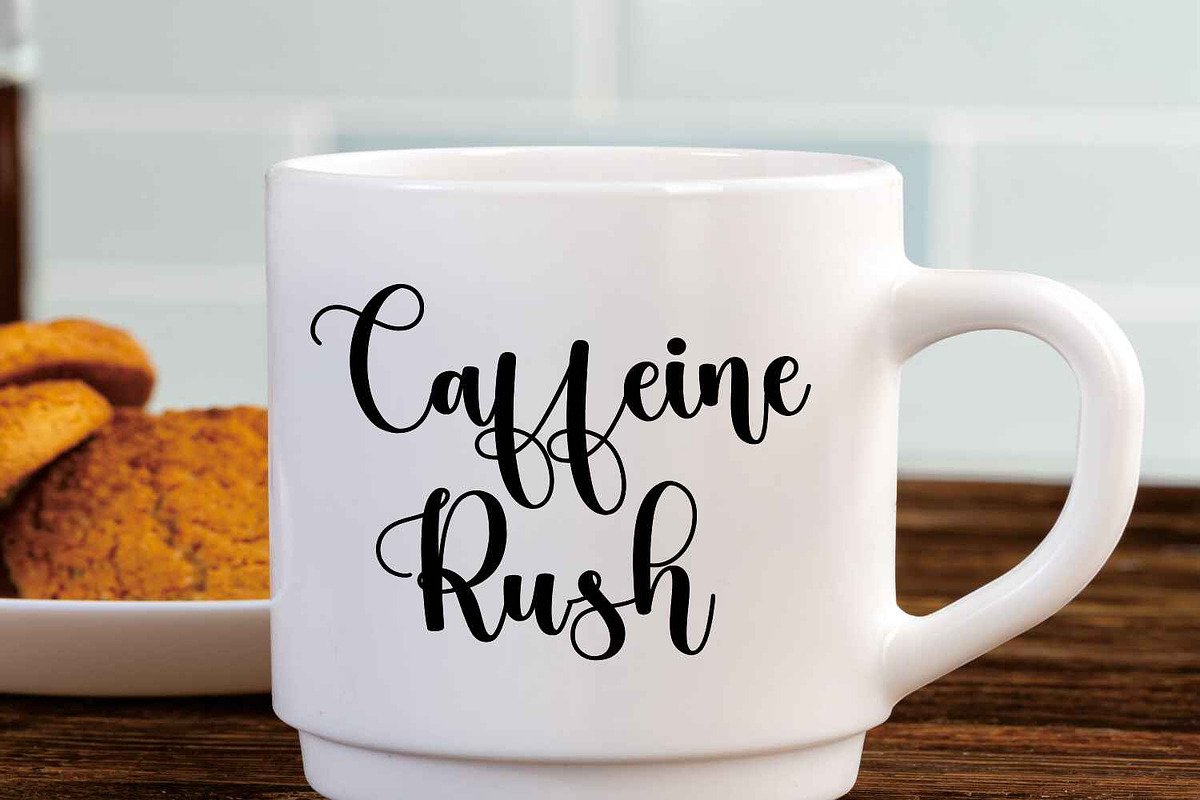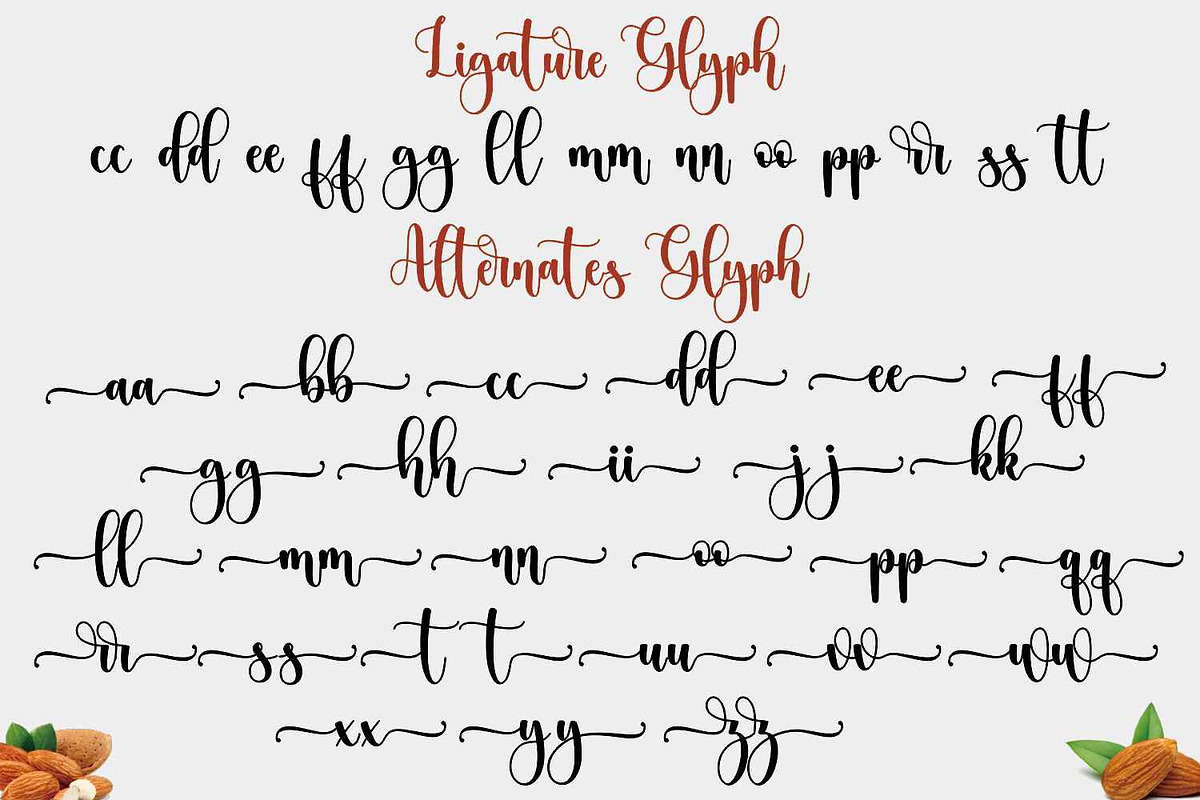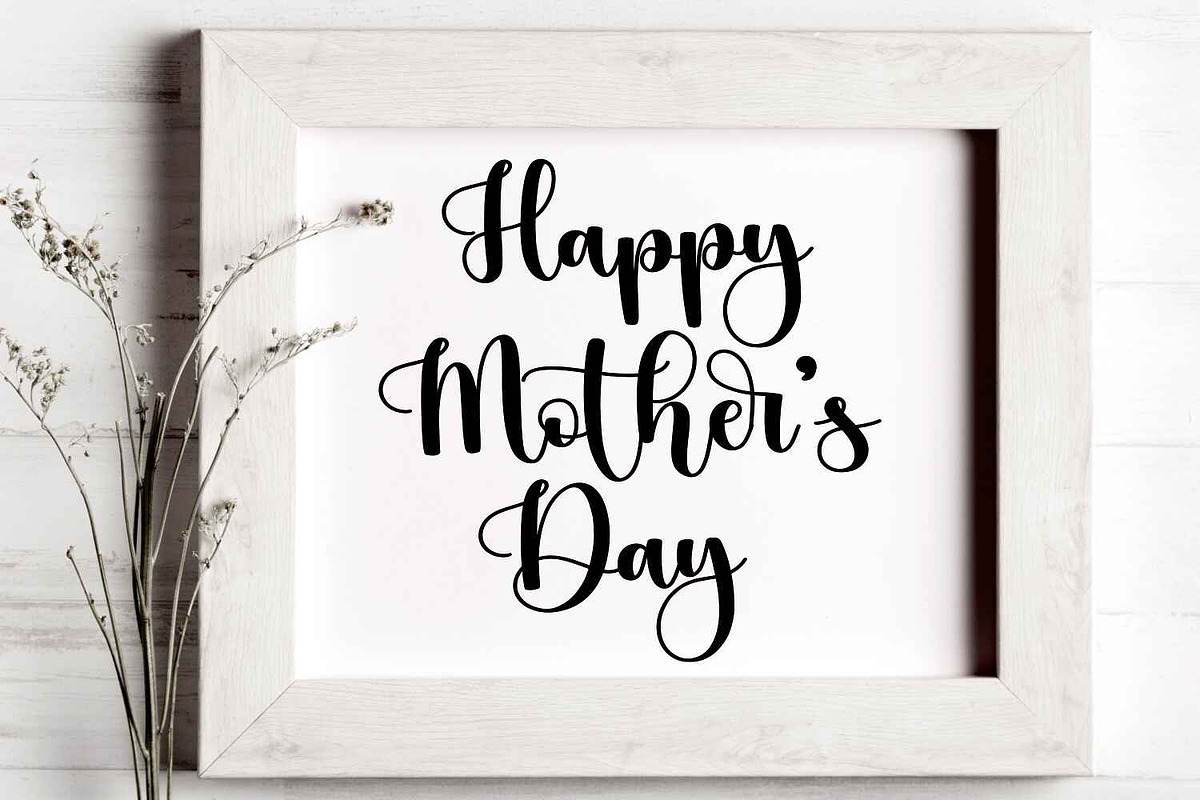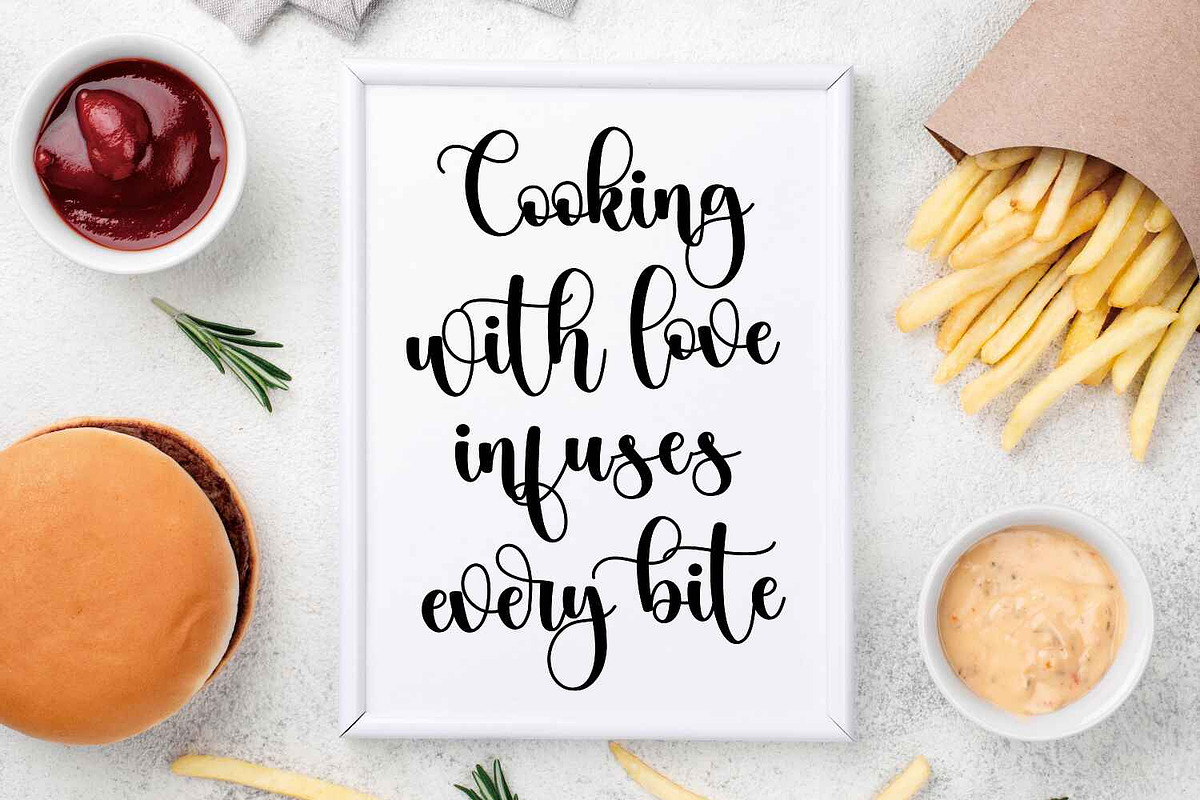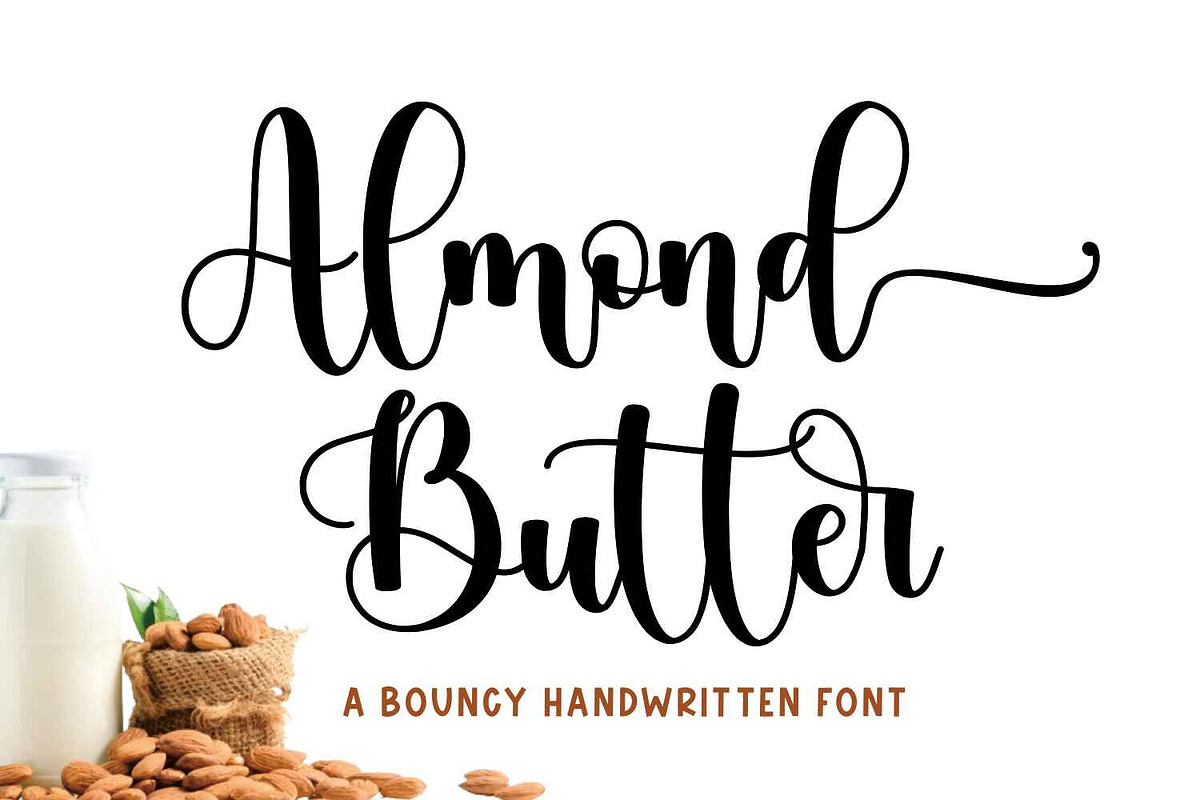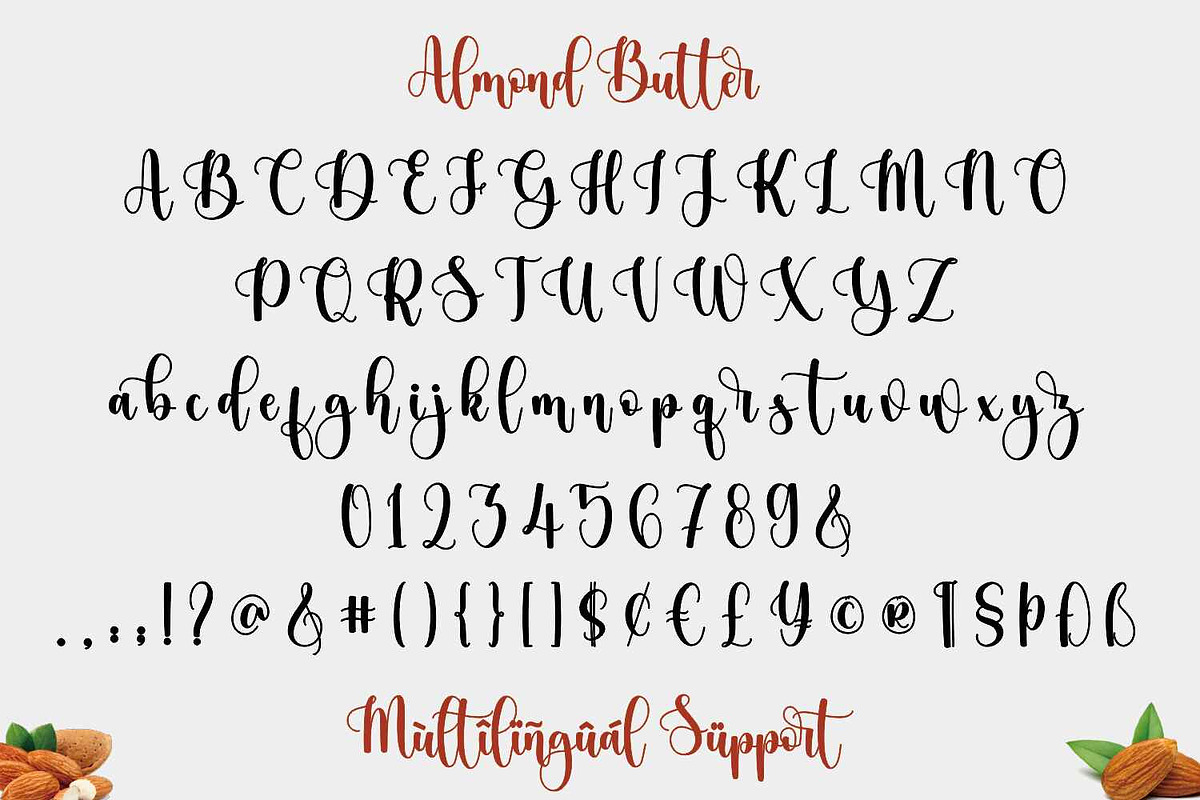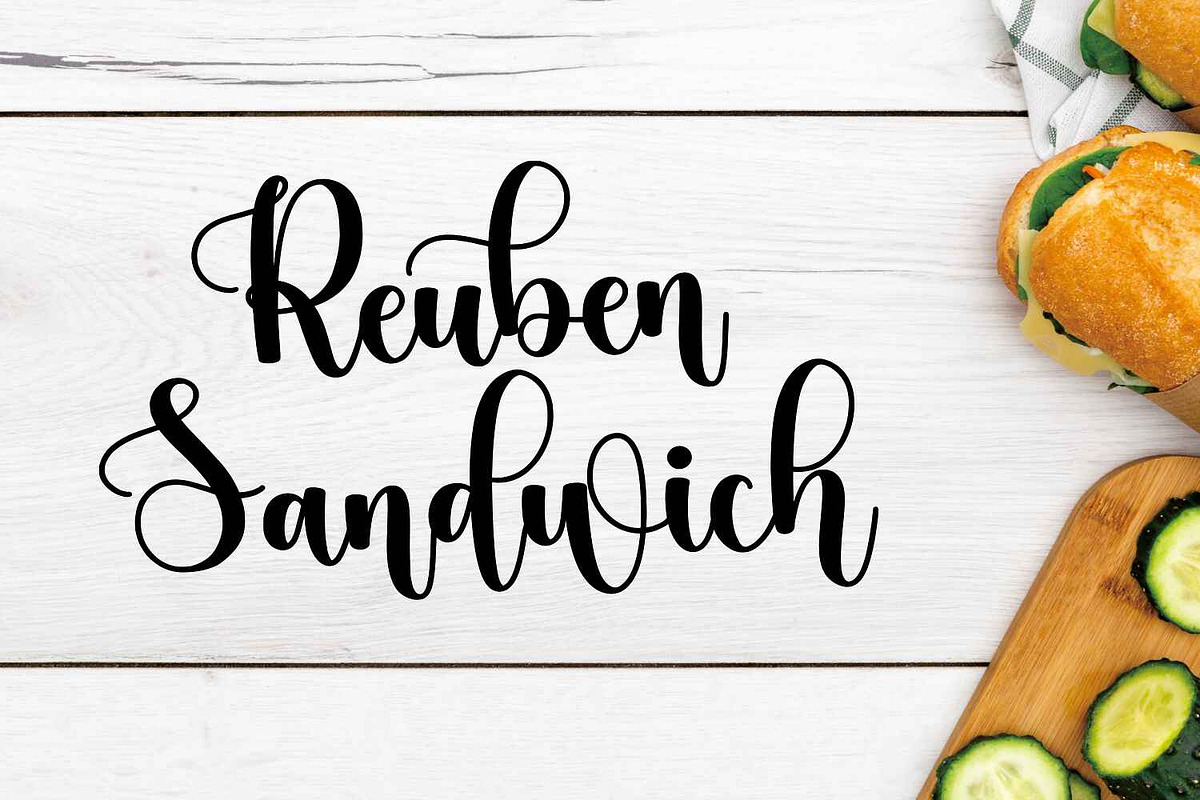
Almond Butter
Introducing "Almond Butter" font – a captivating script handwritten font designed to elevate your creative projects to new heights. With its fluid strokes and elegant curves, this font exudes charm and sophistication, making it an ideal choice for various applications. Whether you're indulging in crafting, embroidery, or cutting intricate designs with a silhouette machine like Cricut, "Almond Butter" font adds a touch of artisanal flair to your creations. Its versatility seamlessly transitions from seasonal themes like spring and summer to festive occasions such as Christmas, making it a versatile asset for your font library.
Transform your branding endeavors with the enchanting allure of "Almond Butter" font. Perfect for logo designs, clothing branding, and packaging, this font infuses your projects with personality and distinction. Picture your magazine headings radiating with warmth and character, or your advertising materials captivating audiences with its unique style. Whether it's T-shirts, postcards, or any other creative venture, "Almond Butter" font lends an air of sophistication and creativity to your work, ensuring it stands out in a crowded marketplace.
Unlock the potential of your designs with "Almond Butter" font today. With its seamless blend of elegance and versatility, this script font is a must-have for anyone seeking to make a lasting impression. Elevate your projects to extraordinary heights and captivate your audience with the irresistible charm of "Almond Butter" font. Don't wait any longer – add it to your toolkit and watch your creativity flourish!